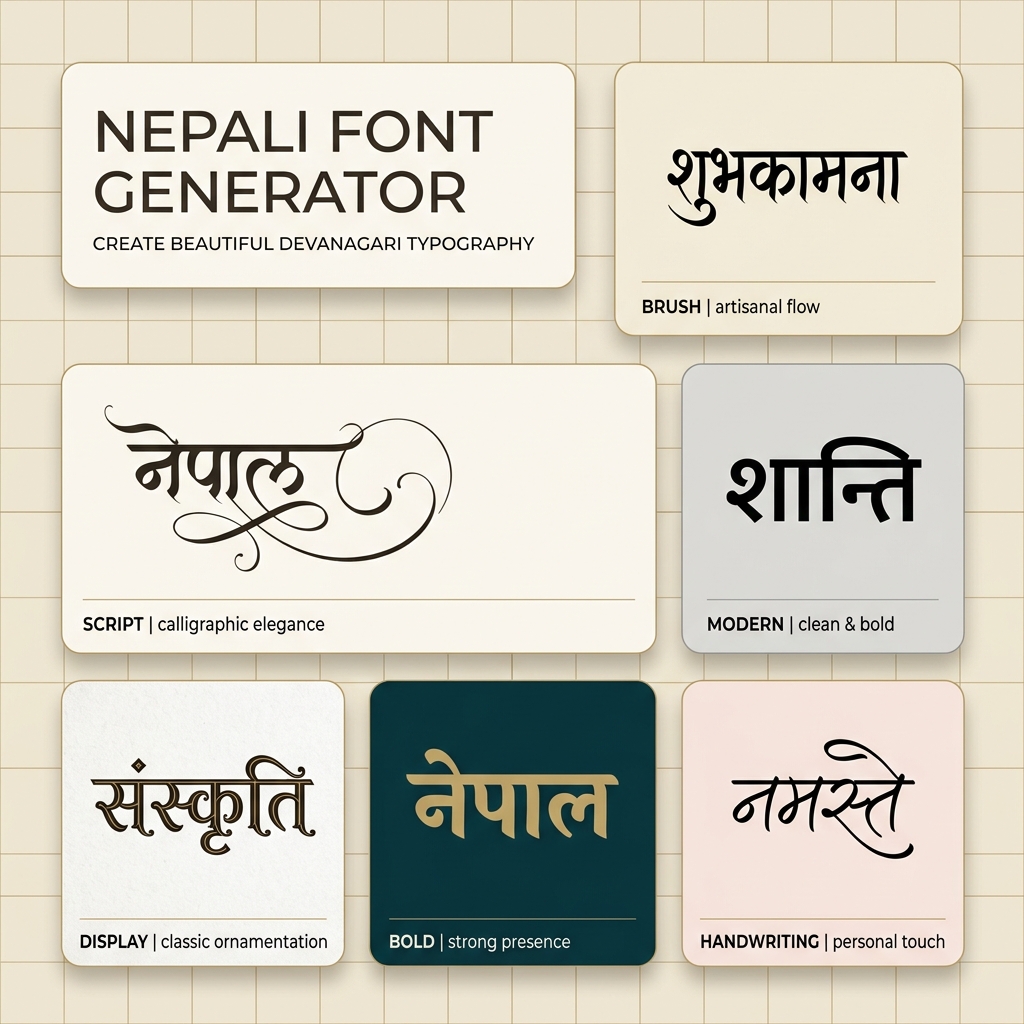
Nepali Font Style Generator
What is a Nepali Font Style Generator?
A Nepali Font Style Generator is an advanced web-based typography utility designed to help designers, bloggers, and content creators style Nepali (Devanagari) text in various artistic fonts. Unlike Latin characters, Devanagari typography requires loading actual font files (TTF/OTF) to render unique calligraphy or brush designs. This generator compiles 180+ premium Nepali font files into one easy-to-use playground, showing real-time previews of how your text looks in handwriting, display, and traditional legacy styles.
Our generator supports both modern Unicode Devanagari fonts (compatible across all modern web browsers and mobile devices like Kalimati and Aparajita) and classic legacy fonts (including the popular Preeti, Kantipur, Sagarmatha, and Everest series) that are widely used by DTP professionals and graphic designers in Nepal.
History and Evolution of Nepali Typography
The story of Nepali typography is intimately tied to the evolution of the Devanagari script (originally originating from ancient Brahmi script around the 4th century CE) and the historical transition from handwritten manuscripts to digital typography. Over the centuries, Nepal developed unique regional scripts like Ranjana, Bhujimol, and Prachalit, primarily used by the Newar community for writing Sanskrit and Nepal Bhasa in the Kathmandu Valley. However, Devanagari eventually emerged as the standardized script for official communications and the modern Nepali language.
The Early Printing Era in Nepal
For centuries, written Nepali existed only in the form of handwritten scrolls, copper plates, and woodblock prints used in temples. Modern printing in Nepal commenced in 1851 CE when Prime Minister Jung Bahadur Rana imported the nation's first manual printing press from England, famously known as the Gidhey Press (Vulture Press). This printing press was instrumental in publishing the country's first state legal code (Muluki Ain) and later printing early issues of the historic Gorkhapatra newspaper. These early publications relied on physical metal typesets manufactured by Indian typefoundries.
The Legacy DTP Era (The Preeti Revolution)
With the arrival of personal computers in Nepal during the late 20th century, local designers faced a major challenge: how to type Devanagari characters on standard QWERTY keyboards designed for English. In response, font designers created "legacy" typefaces. The most revolutionary of these was Preeti font, designed in the early 1990s. The Preeti layout mapped Sanskrit and Devanagari glyphs directly to Latin keyboard keys (for example, typing "g]kfn" on the keyboard mapped to the letters "नेपाल"). This layout soon became the default standard across typewriter institutes, local newsrooms, publishers, and government offices throughout Nepal, spawning other popular layouts like Kantipur, Sagarmatha, and Everest.
The Modern Unicode Era
While legacy fonts paved the way for desktop publishing, they suffered from a fatal flaw: the text was not universally readable on other systems without installing the specific font files. The introduction of the global Unicode standard for Devanagari (specifically the U+0900 to U+097F block) solved this problem. The standard enabled computers, mobile phones, and web search engines to process Devanagari characters semantically. Led by local initiatives and organizations like Madan Puraskar Pustakalaya, phonetic Unicode layouts (such as Romanized Nepali) were developed. Fonts like Kalimati and Mangal became the standard for internet websites, digital newspapers, social media posts, and modern operating systems.
Understanding Unicode vs. Preeti (Legacy) Font Systems
When working with Nepali typography, you will encounter two primary font architectures:
1. Modern Unicode Devanagari Fonts (Kalimati, Mangal, Aparajita)
Unicode is the international standard for text representation. Standard Android/iOS keyboards and Google Input Tools type Unicode by default. When you copy Unicode Nepali text, it remains standard Nepali regardless of what font is applied. It is compatible with Instagram bios, WhatsApp chat, Facebook status updates, and web pages because the text is stored as semantic Devanagari characters.
2. Legacy Preeti Layout Fonts (Preeti, Kantipur, Everest, Sagarmatha)
Before Unicode, software typed Nepali by replacing Latin letters with Devanagari glyphs (e.g. typing "g]kfn" produced "नेपाल"). These fonts are called legacy or Preeti-layout fonts. Most highly-decorative Nepali calligraphy and script fonts are designed this way. If you copy a legacy font string, it looks like gibberish English letters (e.g. "g]kfn" instead of "नेपाल"). However, in professional DTP tools like Adobe Photoshop, CorelDraw, or MS Word, pasting this code and selecting the Preeti font instantly displays beautiful Nepali script.
How to Generate and Use Custom Nepali Calligraphy in Photoshop
Almost every Nepali design job starts with the same awkward question: is the text you have been handed actually Nepali, or is it Preeti keystroke code? A Kathmandu press file, an old patrika layout and a government notice may all arrive as strings like g]kfn, while the same words from a client's Facebook post arrive as proper Unicode नेपाल. The steps below keep those two worlds from colliding in your artwork.